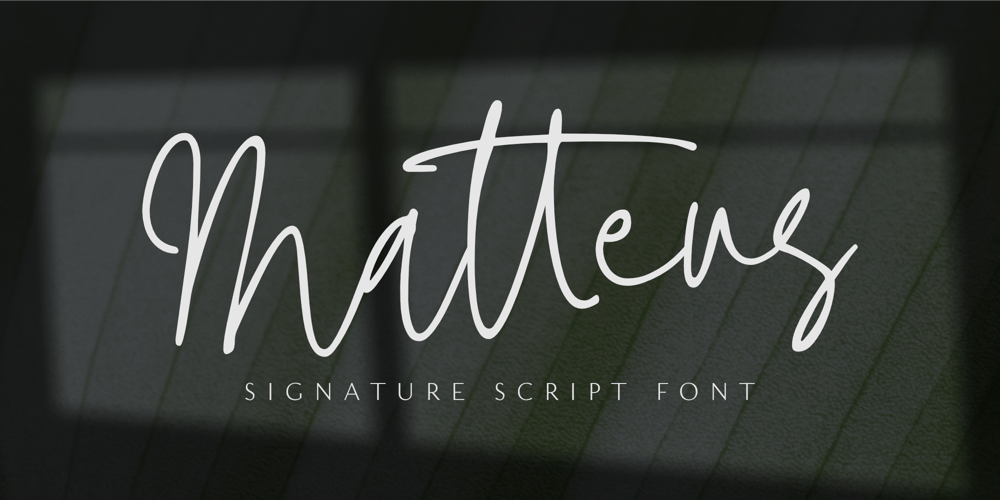
Matteus
Matteus font
Matteus Font Family was designed by Aldy Sidik and published by Epiclinez. Matteus contains 1 styles and family package options. Matteus is a new, fresh, and beautifully crafted signature script font. It’s suitable for branding, logos, social media posts, and everywhere else you’re looking for an awesome signature style.So what’s included : Basic Latin Uppercase and Lowercase Numbers, symbols, and punctuations Ligatures Multilingual Support Simple Installations Works on PC & Mac